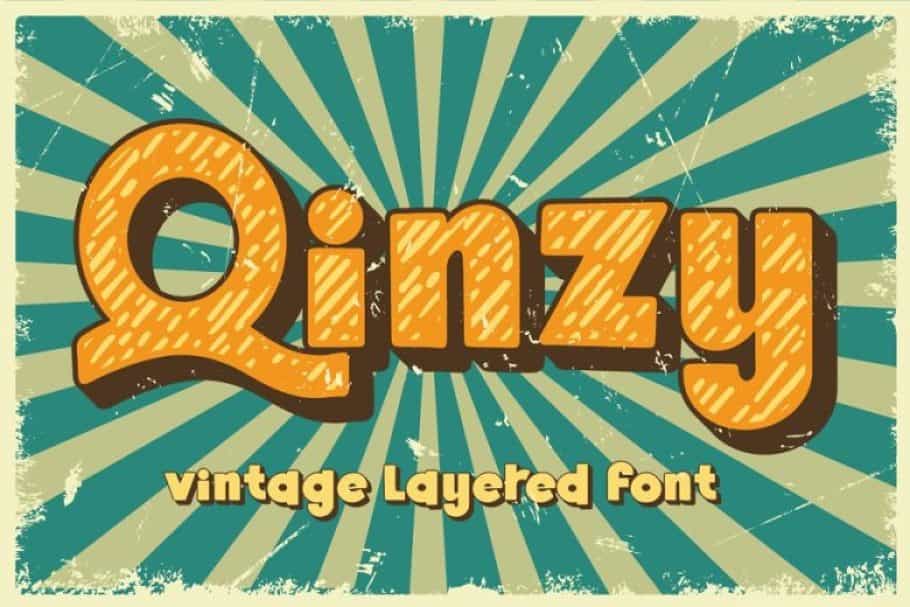
Qinzy’s Vintage Layered Font consists of three styles of font for the easily user-friendly 3D design that is reminiscent of the 1970s. Three style fonts include Handwritten, Texture and Extrude for 3D results with Qinzy being family font family typeface with three font styles: Application of handwritten texture to extrude.